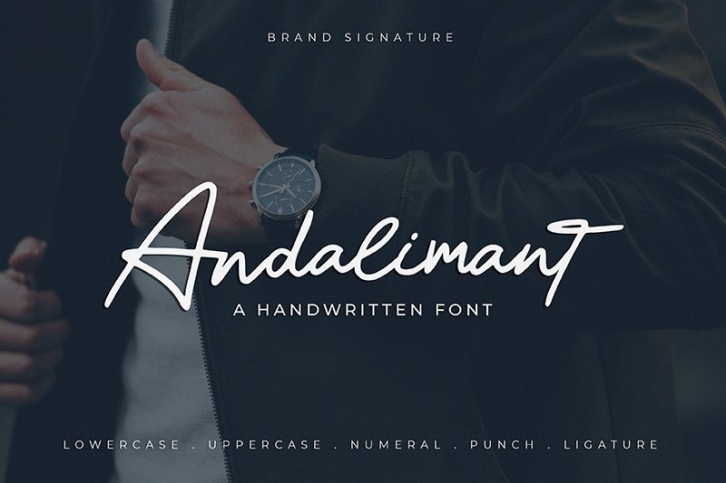
Andalimant is a beautiful font that was designed by Klakon Studio. It's a great choice for designers and creatives who need such a font. It was released on March 27, 2021 and the file size is 1.76 MB. Andalimant may give a more youthful, expressive and casual look to your project. It is a very beautiful, refined, elegant, and high-quality font.